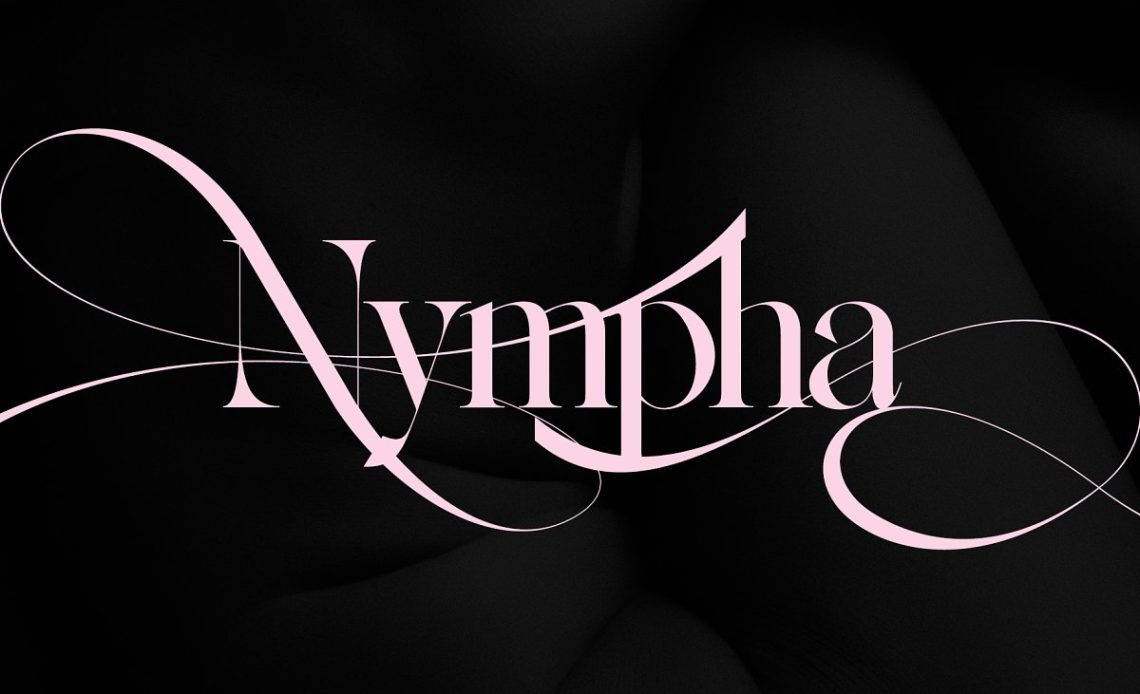
Welcome to Nympha Luxurious Font - Regular, a stunning serif typeface designed by Lacre Type Foundry, perfect for those looking for the best fonts for magazine layouts. With over 800 characters, European language support, and hundreds of ligatures, swashes, and stylistic alternates, Nympha offers endless possibilities for typographic compositions.
Nympha is a versatile font family that offers two distinct personalities in the form of two stylistic sets of characters: a contemporary and elegant one and an exquisite and unusual one, both of which can be mixed to achieve surprising results. Its hard contrast and refined details, along with its opulent swashes and voluptuous curves, create a beautiful and powerful statement to any typographic composition, mixing glamour with a contemporary aesthetic.
Nympha is not just a font; it's an experience. It's an elegantly crafted and luxuriously exuberant typeface that exudes femininity and glamour, but also a side of exquisity. With its full family features, which include 4 styles, 2 weights, and over 3200 characters, Nympha is the perfect choice for designers who want to make a bold statement in their magazine layouts.
But Nympha isn't just about style; it's also about substance. With its old numerals and up to 10 stylistic variations for each character, Nympha offers a vast amount of options to create beautiful and compelling designs. Its European language support also makes it a great choice for international publications.